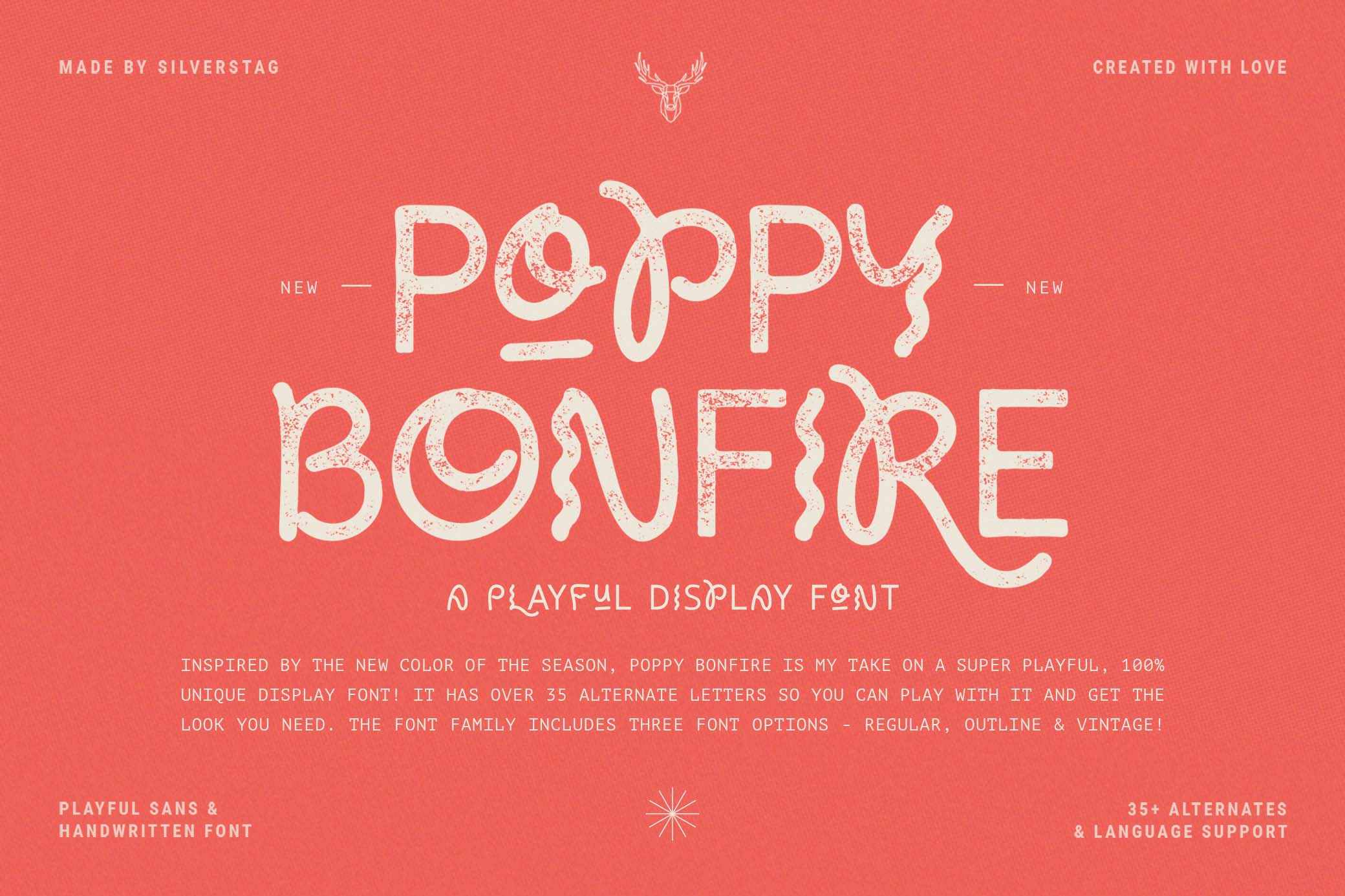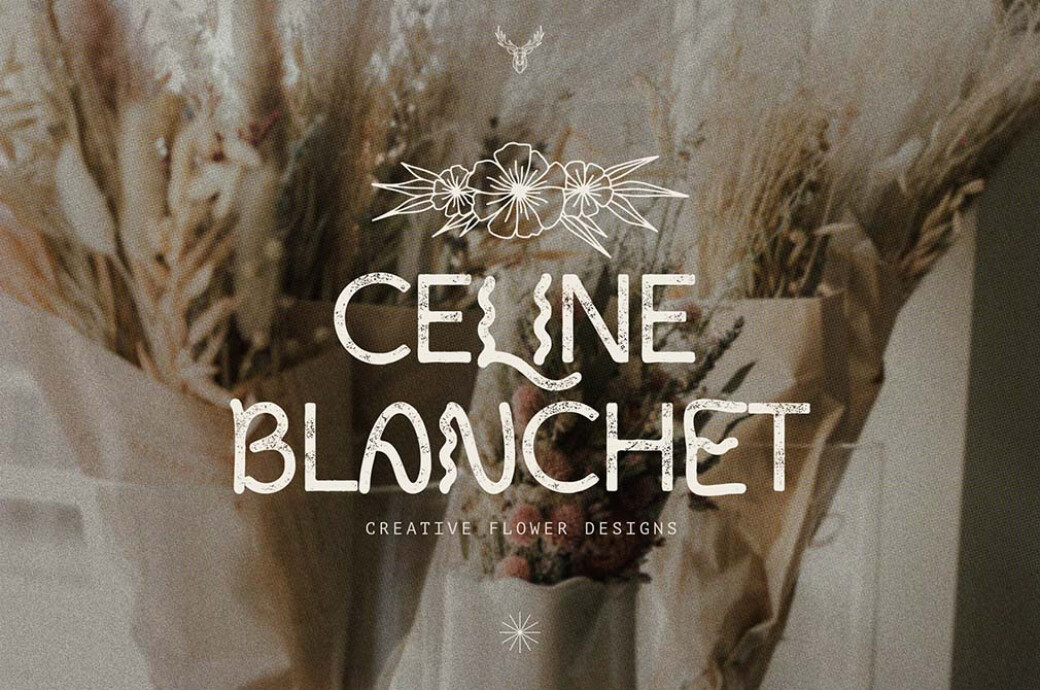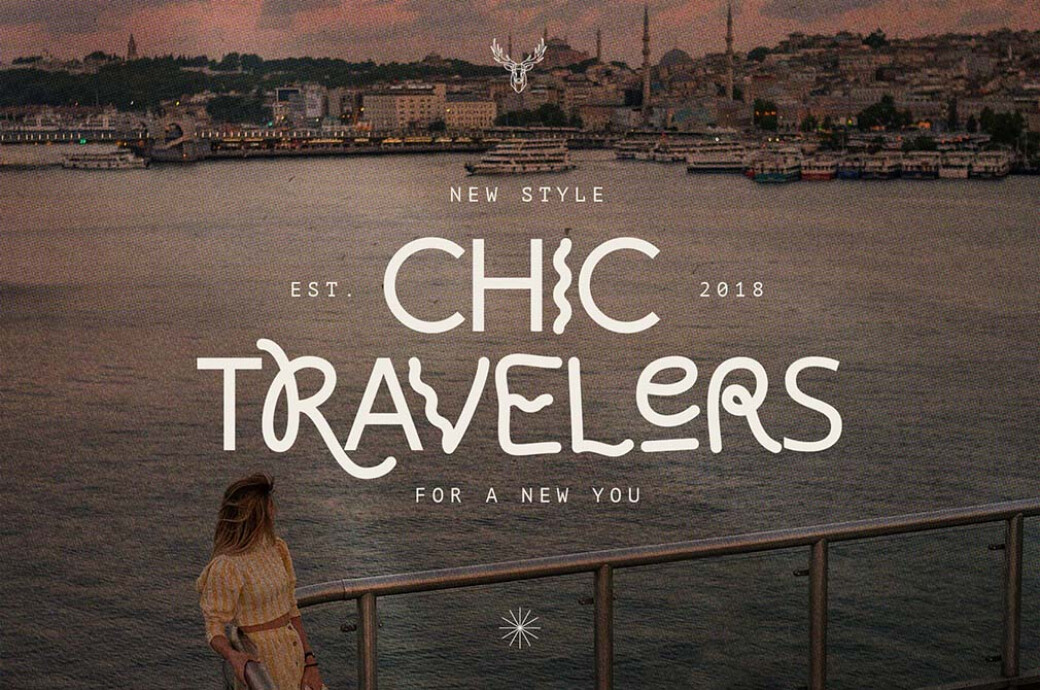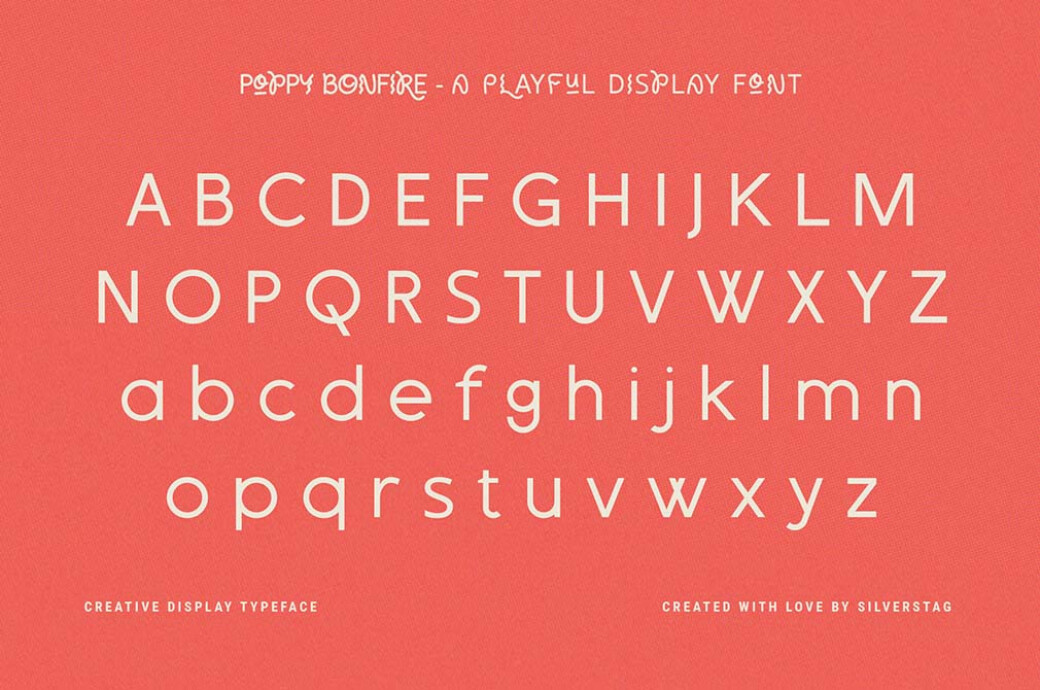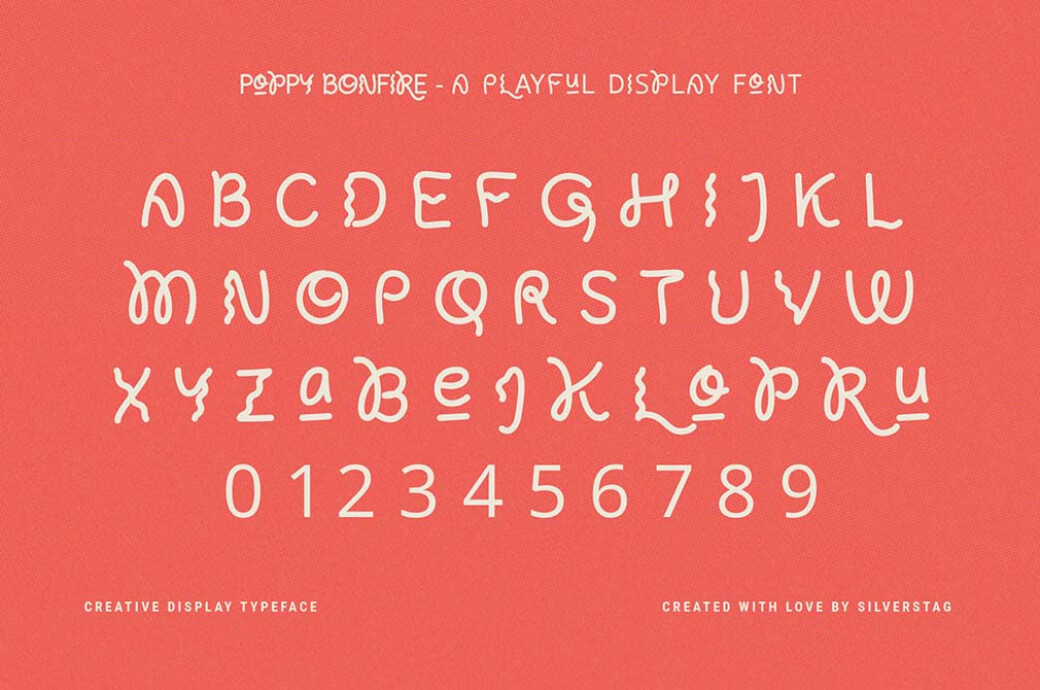
Poppy Bonfire — Modern Display Font
Imagine a field covered in flame-red poppies. Your designs can be like that too, and it's not a wonder of nature but of typography.Poppy Bonfire embraces playfulness and trendy letter twists. It's an invincible combo for everyone who wants to feature a modern display in their prints, social media posts, logos, branding, or packaging. A crucial detail you shouldn't miss: the font comes in three styles, Outline, Vintage, and Regular. These styles perfectly support each other or match minimalist serif/sans serif types. Poppy Bonfire includes a complete set of characters (including international ones), numbers, punctuation, and 35 alternate letters.